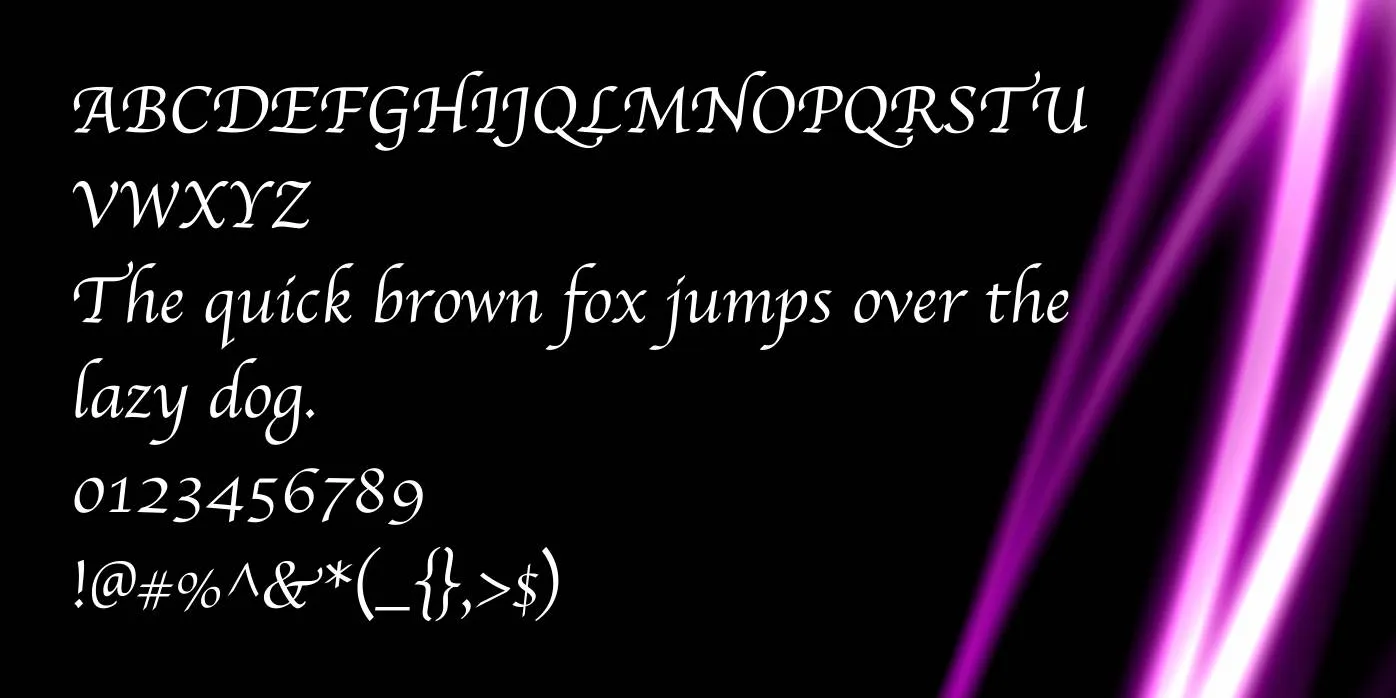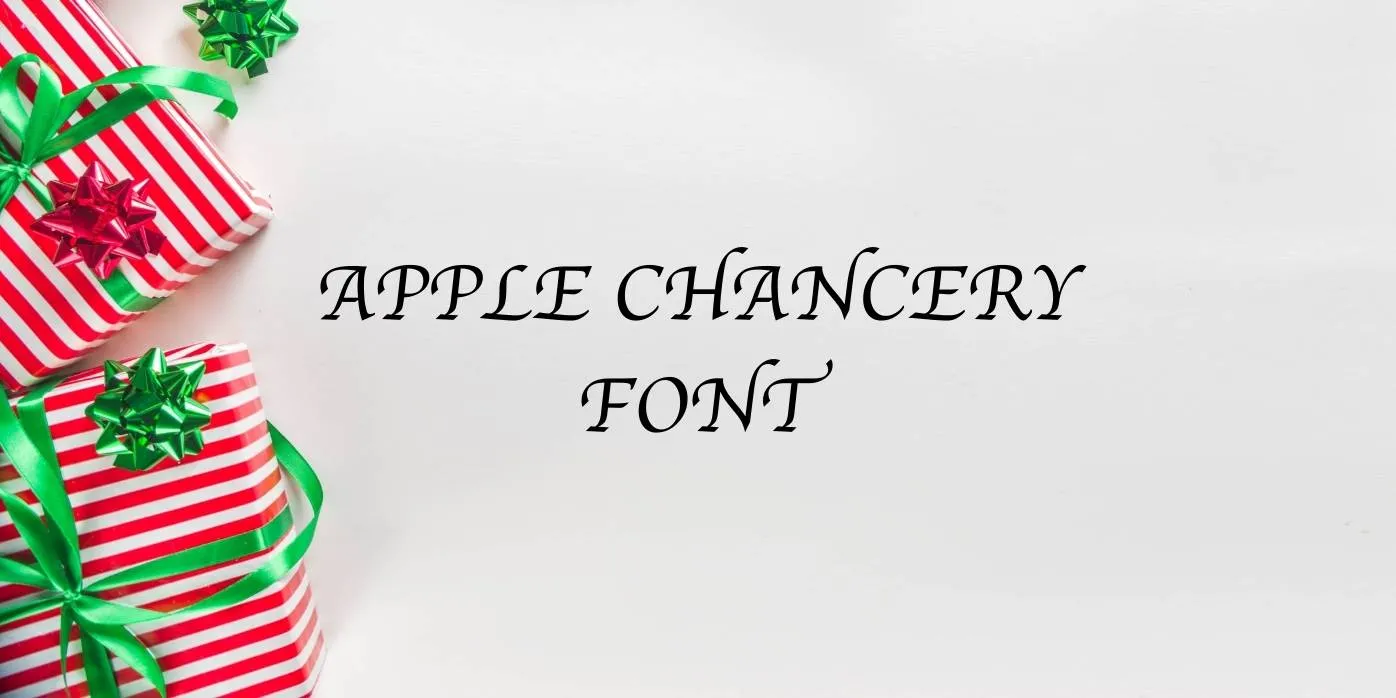
Apple Chancery Font
Apple Chancery Font is famous for its work inside Adobe and Wikipedia. This typeface is also famous for its Pairing function and it is also a member of the CSS family. The designer of this typeface is Bigelow & Holmes Inc and the font has TTF features. It has grown to be as speedy as created for the number one creator in the dirt similar to the josefin sans font.
And this amount has increased every day with the cutting-edge. The font’s characters are the concept of chancery style with unconnected handwritten letters. The font family has regular-style letters with uppercase and lowercase letters, uses symbols, numbers, and numerals, etc. This TrueType feature font has the ability to support many languages and it is a commercial-free typeface.
Usage Its unconnected letters have pretty cool tails with regular letter form. The typeface belongs to a Calligraphy font family and has the ability to cover any design project. The font is very common for screen base designs, especially for minimal logos or your Youtube Channel logos. You can also manipulate your papers and documents like if you are a student then you can use it in your assignments as Body Text or titling as well.
FAQs! What is the Apple Chancery font? This typeface is very beautiful and specially made for apple works. it has a fancy typeface font that has a TTF feature and it is the great creation of  Bigelow & Holmes Inc.
Futura font is a very Beautiful Fancy typeface with an unconnected letters facility. The designers of this typeface are Bigelow & Holmes Inc. It is not included in the google fonts store. Is Apple Chancery a licensed font?